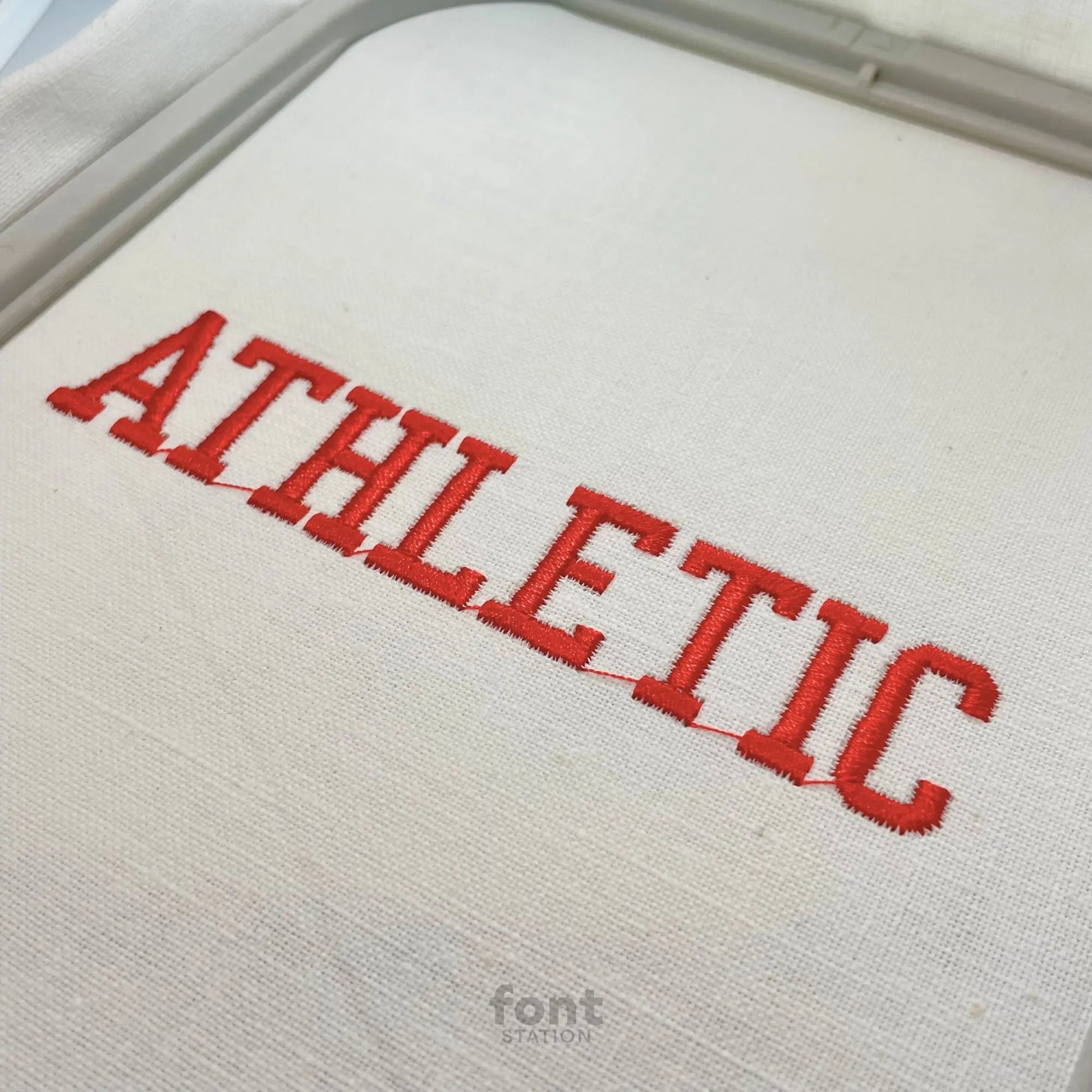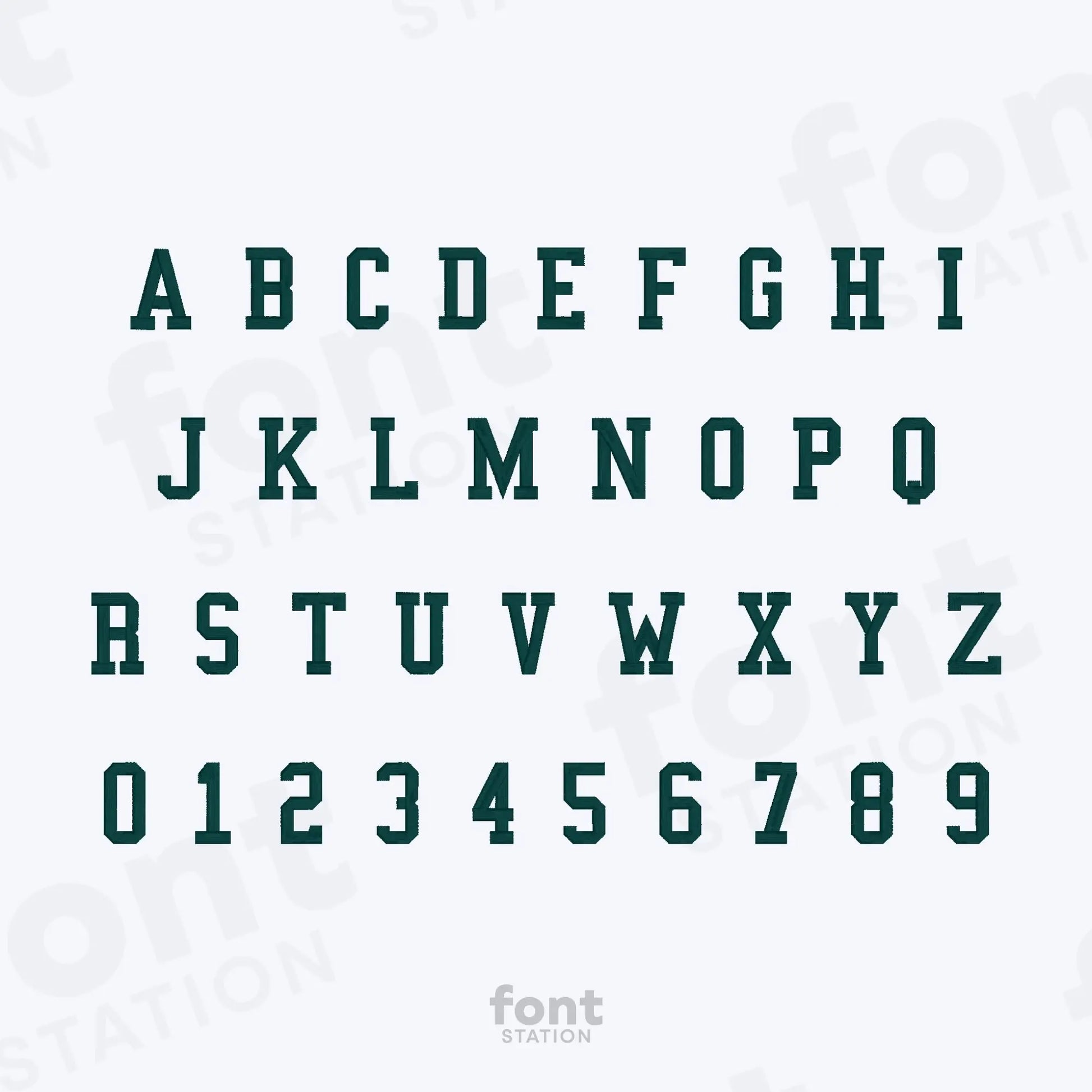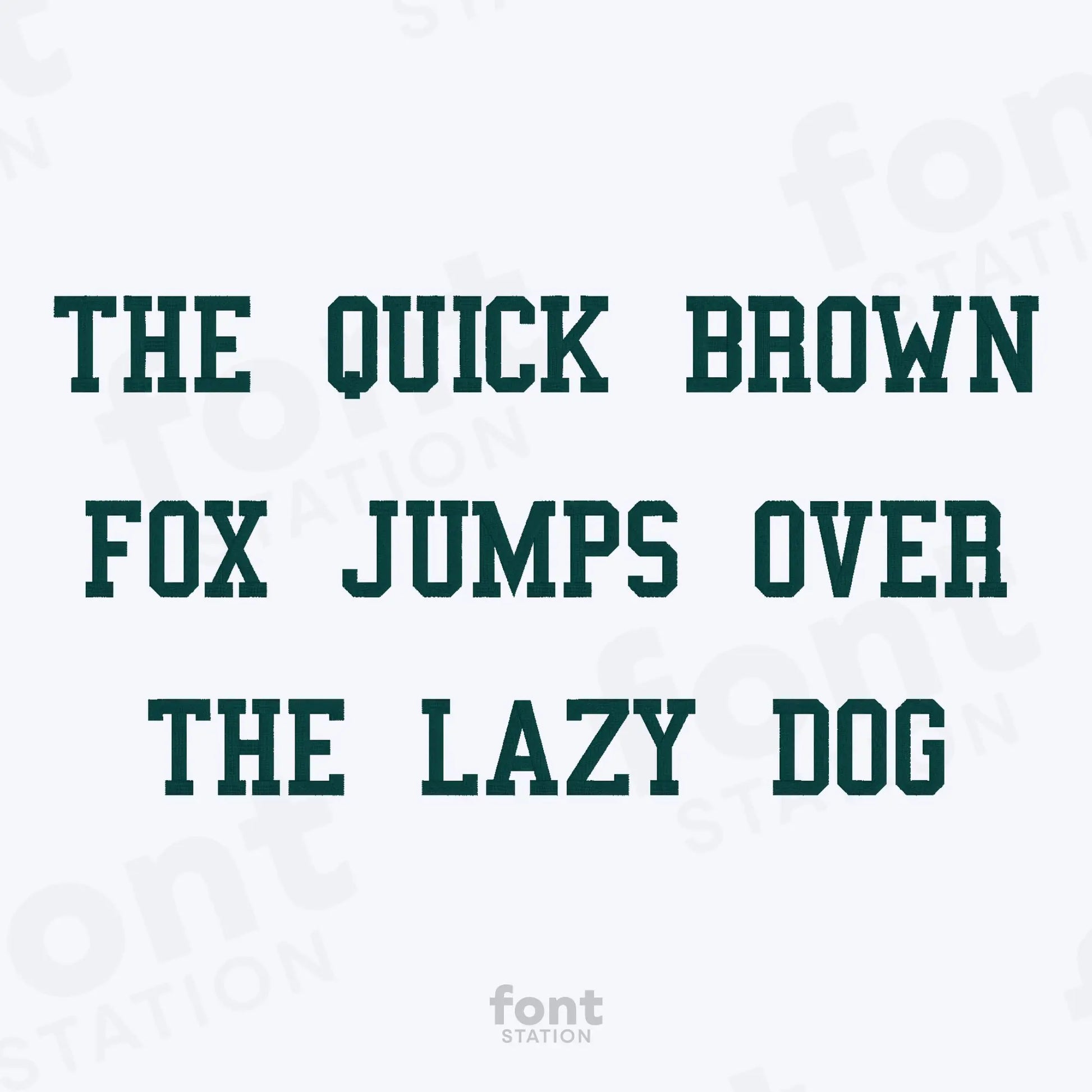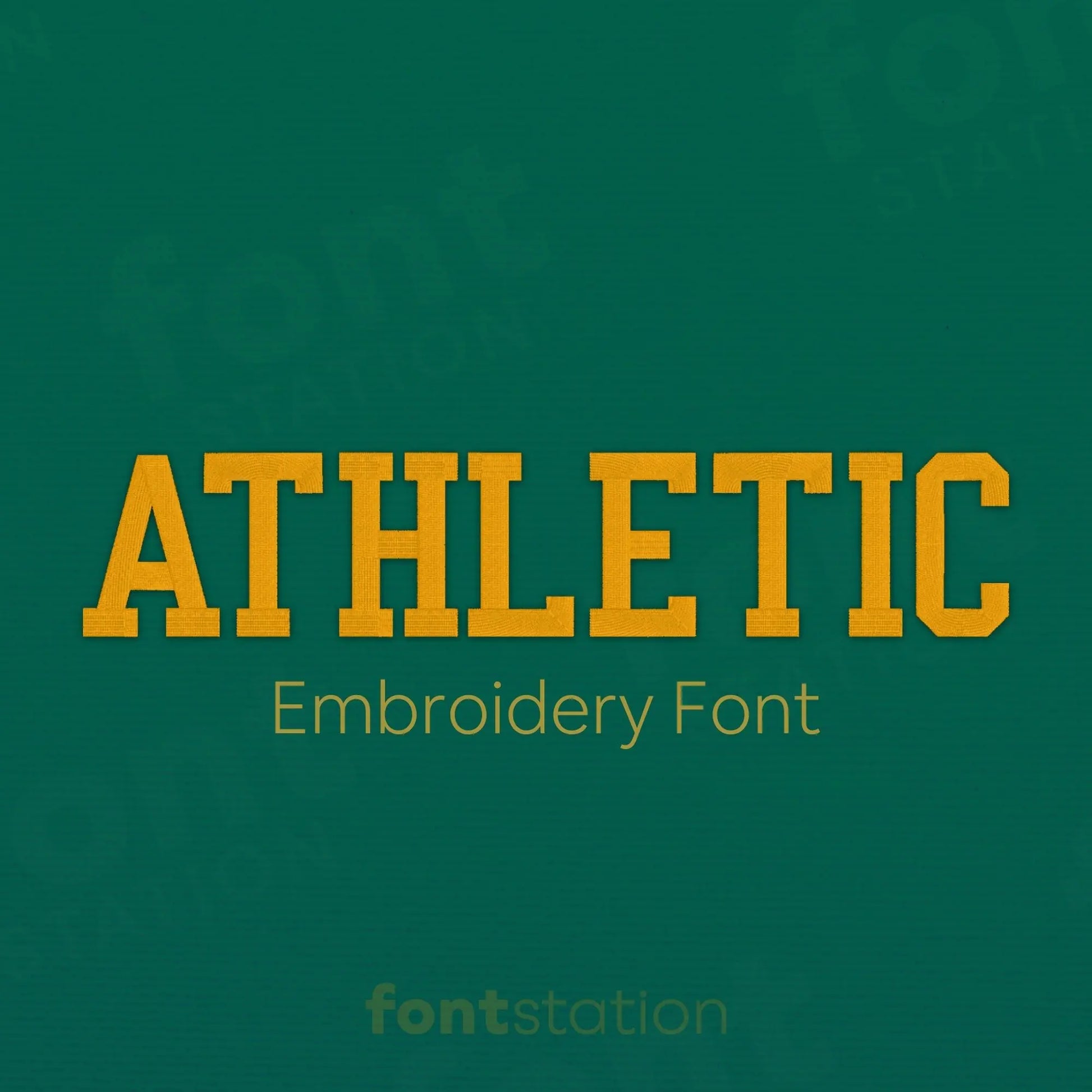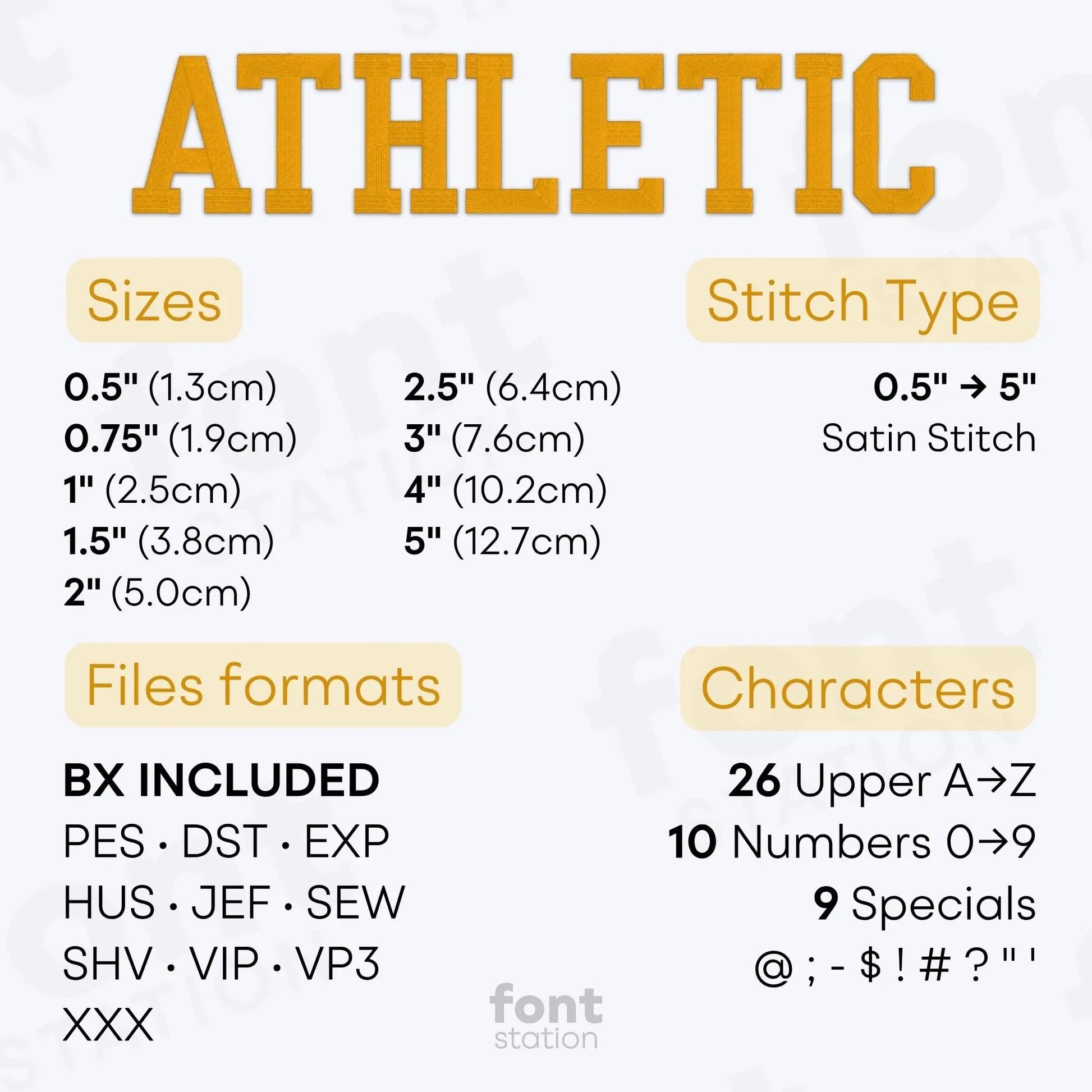
Athletic Embroidery Font
Our Athletic embroidery font is a bold, varsity-style alphabet that adds a sporty touch to any project. It's fully machine-ready and a great addition to your embroidery font collection!
About the Athletic Embroidery Font
Our Athletic embroidery font is perfect for adding a bold, sporty vibe to your designs.
Give your embroidery projects a sporty, standout look with our Athletic embroidery font - a bold, varsity-style embroidery alphabet perfect for custom gifts, uniforms, and team gear. This professionally digitized block embroidery font delivers clean, crisp stitch results and works with most embroidery machines. Whether you're stitching names, numbers, or logos, these embroidery letters are ready to help you create something bold and personal.
Why choose our Athletic Embroidery Letters?
How to use this Athletic Embroidery Alphabet?
Unlimited ways to use our Athletic Embroidery Font